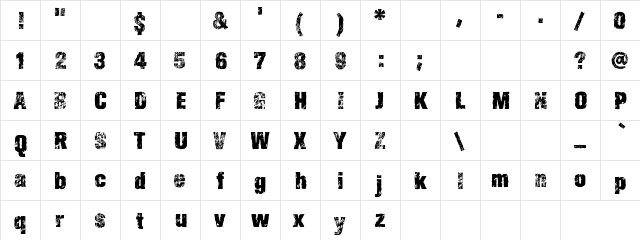
ChopperBoldErodedPKA Regular Font Preview
ChopperBoldErodedPKA Regular
Design Context for ChopperBoldErodedPKA Typeface
ChopperBoldErodedPKA embraces imperfection — its rough, textured character adds raw authenticity to designs that want to feel lived-in and unconventional.
A strong fit for alternative music projects, graffiti-adjacent design, and anything that deliberately resists polish.
Pro Tip: Use ChopperBoldErodedPKA at larger sizes where the texture and irregularity of each letterform can be clearly seen — it loses its character at small sizes.